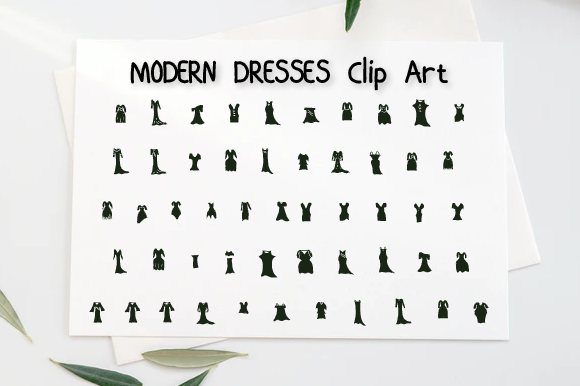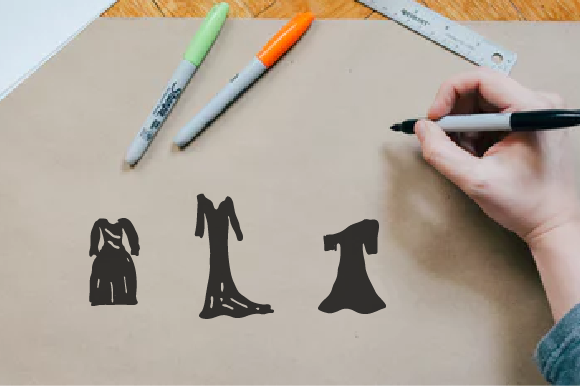
Modern Dresses Font
About Modern Dresses Font
Absolutely! Modern Dresses is a cute and incredibly useful dingbats font that can elevate your creative fashion-themed ideas. With its collection of dress-inspired doodles, this font is perfect for adding a touch of style and flair to your designs. Here are some ways you can use the Modern Dresses font to make your fashion projects stand out:
1. Fashion Blog Graphics: Create eye-catching graphics for your fashion blog using the Modern Dresses font. Use the dress doodles as decorative elements or icons to enhance your blog posts and social media visuals. Whether you’re showcasing the latest trends, offering styling tips, or sharing outfit inspiration, the Modern Dresses font can add a fashionable and playful touch to your graphics.
2. Clothing Brand Logo: Design a unique and memorable logo for your clothing brand using the Modern Dresses font. Incorporate the dress doodles creatively into your logo design to represent your brand’s style and personality. The font’s cute and stylish elements will make your logo stand out and leave a lasting impression.
3. Fashion Event Invitations: Create stylish invitations for fashion events or shows using the Modern Dresses font. Use the dress doodles as decorative elements or borders to set the tone for your event. Whether it’s a runway show, a trunk sale, or a fashion workshop, the Modern Dresses font can add a touch of elegance and sophistication to your invitations.
4. Fashion Illustrations: Enhance your fashion illustrations with the Modern Dresses font. Use the dress doodles as inspiration for your designs or incorporate them as decorative elements in your illustrations. The font’s unique and cute style can bring a playful and fashionable vibe to your artwork.
5. Fashion Infographics: Present fashion-related information in a visually appealing way using the Modern Dresses font. Use the dress doodles as icons or illustrations to represent different fashion concepts or trends. Whether you’re creating infographics about fashion history, body types, or styling tips, the Modern Dresses font can make your infographics engaging and stylish.
6. Fashion Merchandise: Add a fashionable touch to your merchandise using the Modern Dresses font. Incorporate the dress doodles into your designs for clothing, accessories, or stationery items. The font’s cute and stylish elements will make your merchandise stand out and appeal to fashion enthusiasts.
Remember to play around with different combinations of the Modern Dresses font, other typography, and color schemes to create unique and visually captivating designs. Let the font’s cute and stylish elements inspire your creativity and make your fashion-themed ideas shine!